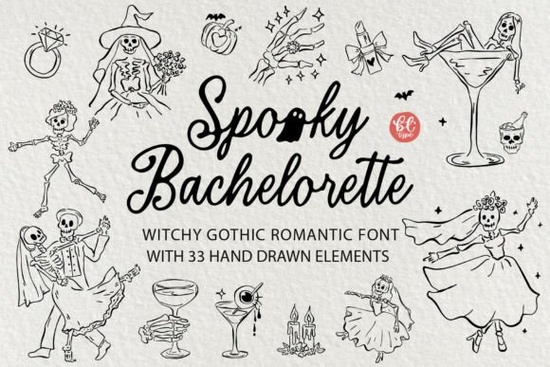
Planning an alternative bridal shower or a Halloween-themed bachelorette party requires a very specific aesthetic. You need something that balances romance with a bit of macabre charm. The Spooky Bachelorette Font is designed exactly for this niche. It pairs a whimsical handwritten script with 33 hand-drawn clipart elements, giving crafters and designers everything they need to create cohesive, ghostly gothic party supplies. Whether you are making invitations for a last bash before the wedding or designing merchandise for a bridal party, this bundle provides the right mix of spooky and sweet.
What makes this design bundle unique for Halloween weddings?
Traditional wedding designs often lean toward elegant and understated. If you usually prefer a cleaner look, you might normally reach for clean, simple bridal lettering for standard events. However, this specific collection offers a much more playful, alternative vibe. The hand-drawn graphics include a skeleton bride, a ghost martini, wedding rings, dice, and a disco ball. These elements capture the fun, slightly rebellious energy of a Halloween bachelorette weekend. It allows small business owners and hobbyists to tap into a growing market of couples who want their pre-wedding celebrations to reflect their unique, non-traditional style.
How can you use these assets for party supplies and merch?
The versatility of this set makes it highly practical for a wide range of physical and digital products. Because the graphics are distinct and thematic, they work beautifully for:
- Invitations and Signage: Set the tone immediately for the event with matching welcome signs and itinerary cards.
- Apparel and Tote Bags: Create custom shirts or canvas bags for the bridal party to wear during the weekend activities.
- Favor Bags and Hangover Kits: Design small tags or labels for survival kits, which are incredibly popular for morning-after brunches.
- Stickers and Decals: Produce custom stickers for water bottles, laptops, or party favors.
When designing multi-page items like menus or detailed welcome packets, readability is just as important as style. You can easily pair this spooky theme with a solid secondary typeface like a bold, highly legible script to ensure your event details are clear and easy to read from a distance.